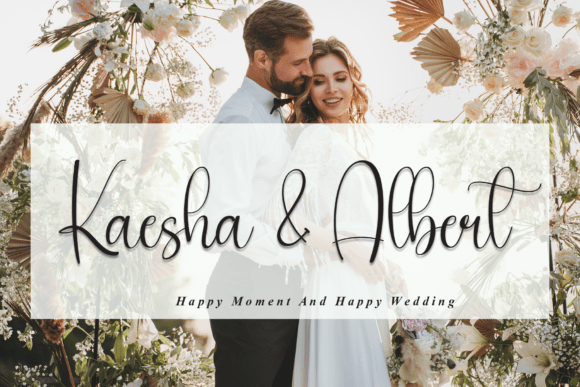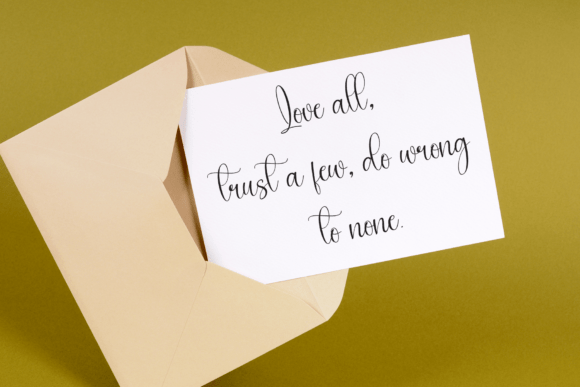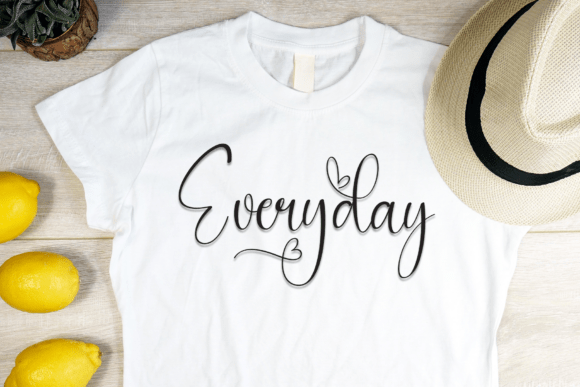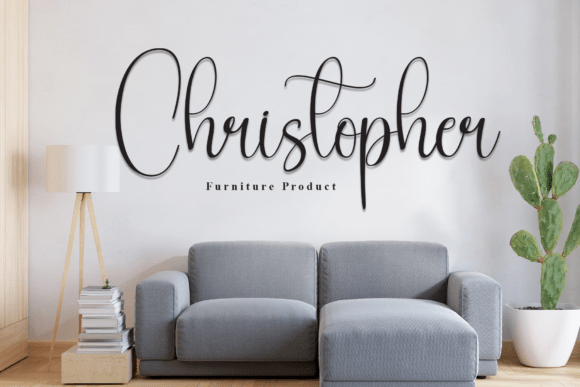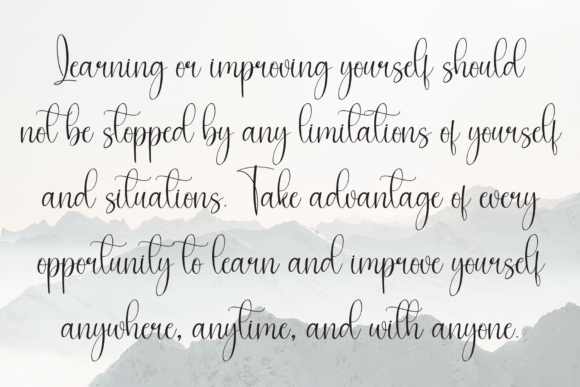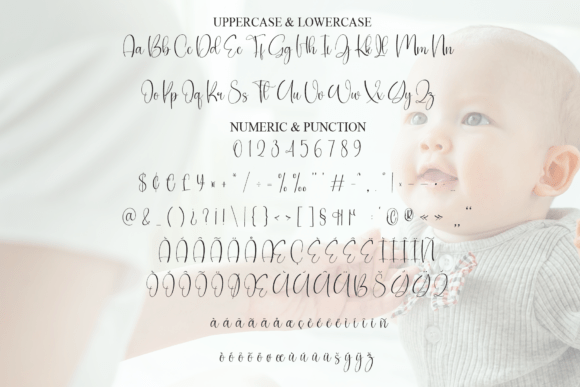
Baby Sweet Font: Elevate Your Designs with Elegance and Charm
In the world of typography, fonts play a crucial role in conveying the tone and personality of a brand, product, or message. For designers and crafters seeking to add a touch of sophistication and warmth to their projects, the Baby Sweet Font is an excellent choice. This stylish handwritten script font seamlessly blends elegance with a modern flair, making it perfect for a wide range of applications.
The Characteristics of Baby Sweet Font
Baby Sweet Font is distinguished by its flowing strokes and organic curves, which give it a unique and refined appearance. The font’s design is characterized by:
- Elegant Handwritten Script: Baby Sweet boasts a beautiful, handwritten script that exudes elegance and sophistication.
- Flowing Strokes: The font’s flowing strokes create a sense of movement and fluidity, adding a dynamic touch to any design.
- Organic Curves: The organic curves of Baby Sweet Font bring a natural, effortless charm to the font, making it perfect for designs that require a personal touch.
Uses of Baby Sweet Font
The versatility of Baby Sweet Font makes it suitable for a variety of projects, including:
- Branding: Establish a strong brand identity with Baby Sweet Font, which can add a touch of elegance and sophistication to logos, business cards, and marketing materials.
- Invitations: Create beautiful and unique invitations for special occasions, such as weddings, baby showers, and birthday parties, with the charming and refined appearance of Baby Sweet Font.
- Social Media: Elevate your social media presence with eye-catching graphics and posts designed using Baby Sweet Font, which can help you stand out in a crowded online space.
Benefits of Using Baby Sweet Font
Incorporating Baby Sweet Font into your designs offers several benefits, including:
- Unique and Memorable: The distinctive appearance of Baby Sweet Font ensures that your designs will be memorable and stand out from the crowd.
- Easy to Read: Despite its elegant and cursive nature, Baby Sweet Font remains highly legible, making it suitable for both headings and body text.
- Versatile: Baby Sweet Font can be used in a wide range of projects, from digital designs to print materials, and can be easily paired with other fonts to create a unique look.
Tips for Using Baby Sweet Font Effectively
To make the most of Baby Sweet Font, consider the following tips:
Baby Sweet Font is a versatile and stylish handwritten script font that can add a touch of elegance and sophistication to any design project. Its flowing strokes, organic curves, and refined appearance make it perfect for branding, invitations, social media, and more. By incorporating Baby Sweet Font into your designs, you can create unique and memorable visuals that stand out in a crowded creative landscape.
Whether you’re a designer, crafter, or simply someone looking to elevate your brand or personal style, Baby Sweet Font is an excellent choice. With its effortless charm and refined appearance, this font is sure to become a staple in your design toolkit.